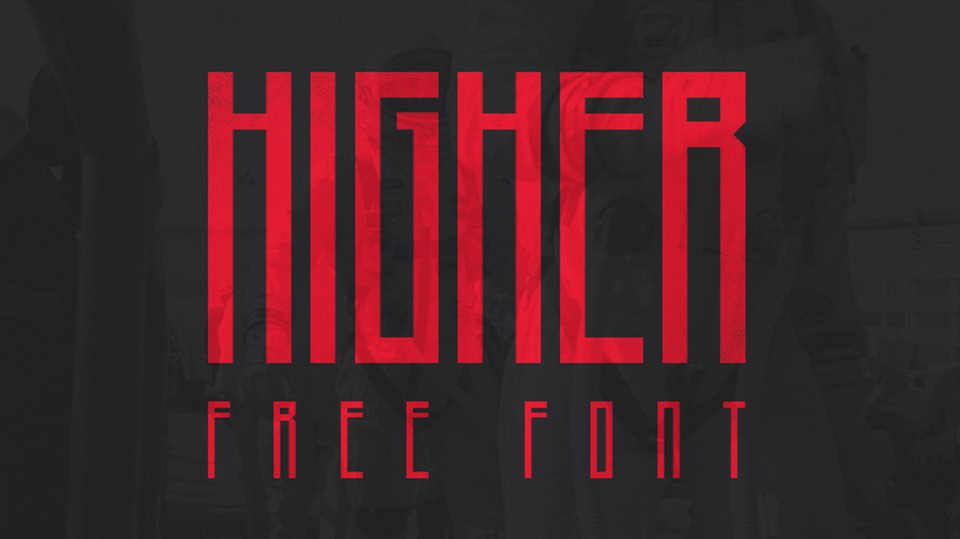
Higher Font
Higher is a tall and narrow display font based on straight forms. It contains all caps letters and numbers.
Higher font perfectly fits for headlines, posters, branding and creative projects.